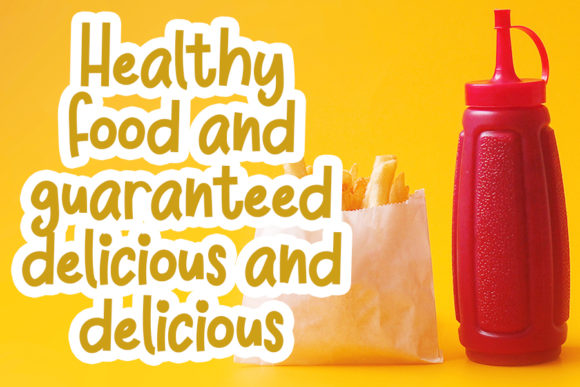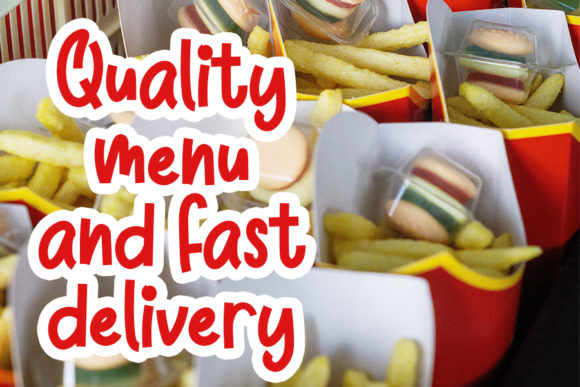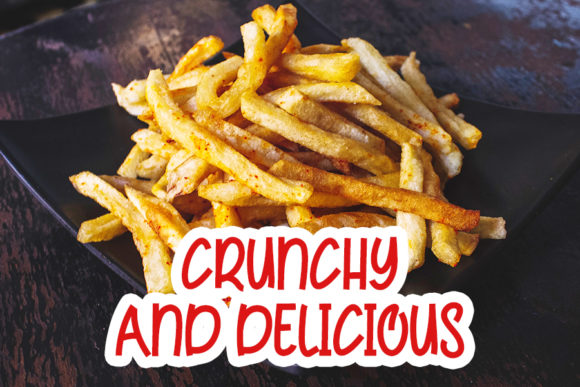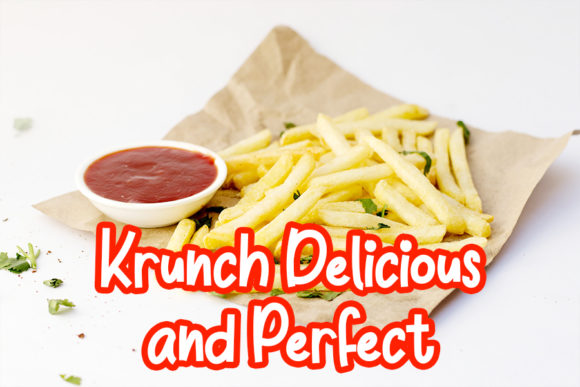
Potato Chips Font
About Potato Chips Font
Potato Chips is a cute and quirky handwritten font. It can be used for various purposes such as logos, wedding invitations, headings, t-shirts, letterhead, signage, labels, news, posters, badges and so much more.